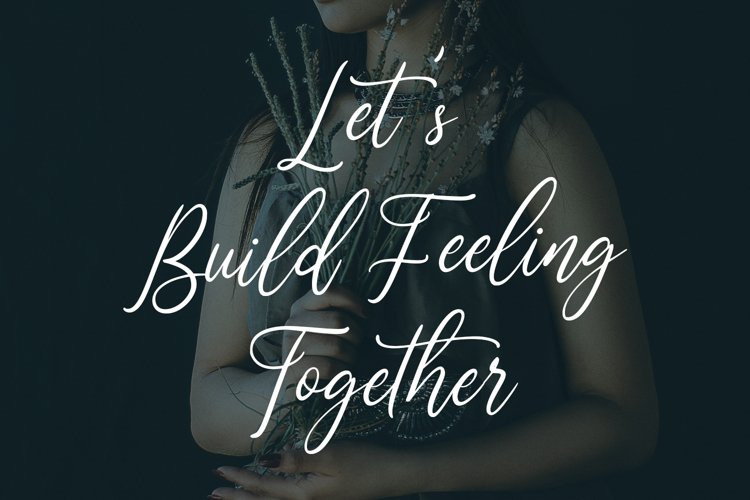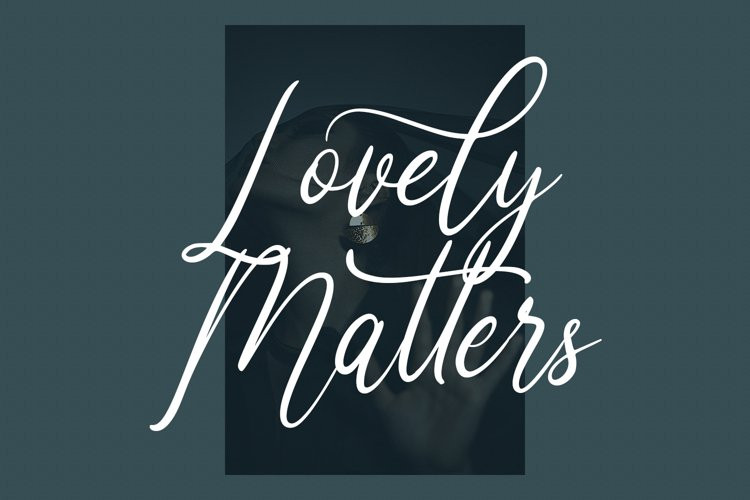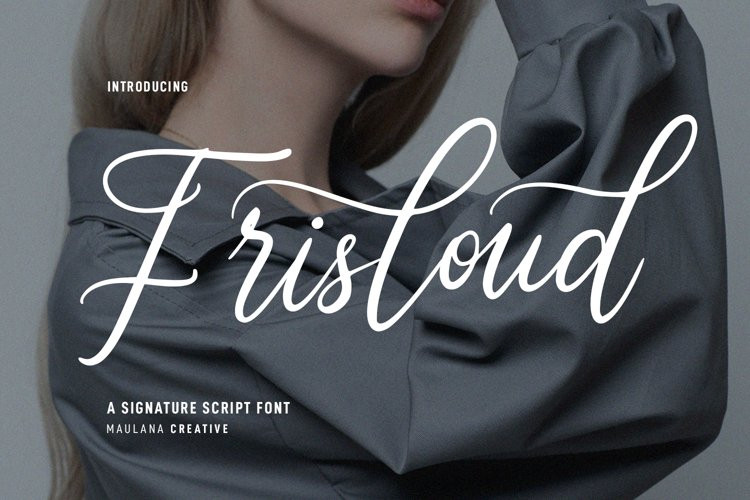
Frisloud Font
Frisloud FontFrisloud is a modern handwritten script font. With light high contrast stroke, fun character with a bit of ligatures and alternates. To give you an extra creative work. Frisloud font support multilingual more than 100+ language. This font is good for logo design, Social media, Movie Titles, Books Titles, a short text even a long text letter and good for your secondary text font with sans or serif. Make a stunning work with Frisloud font.